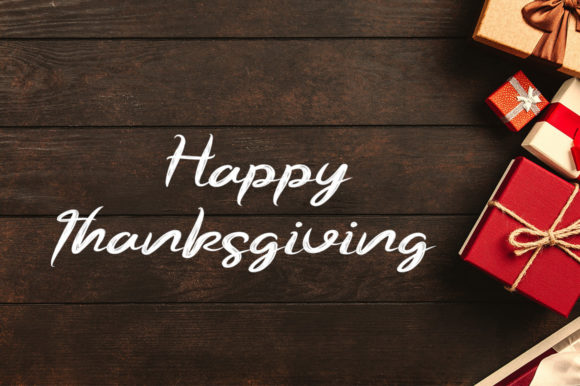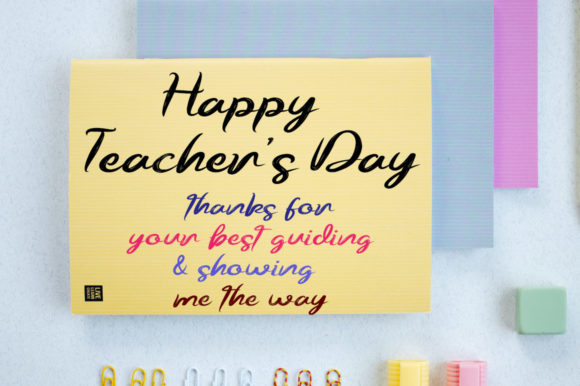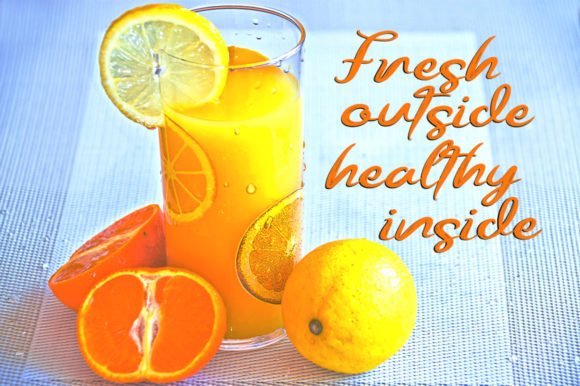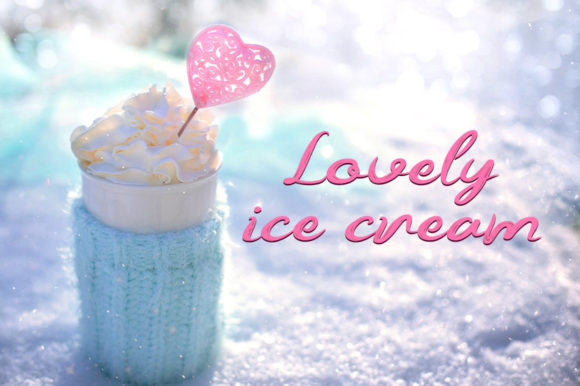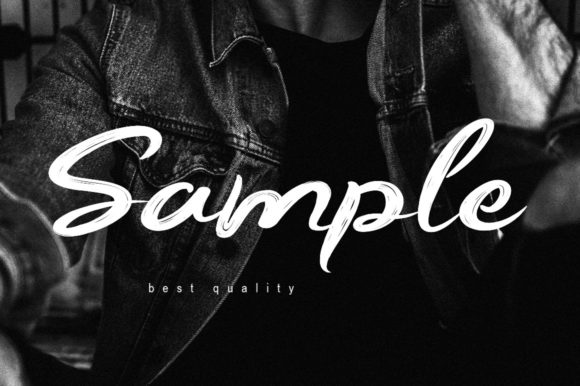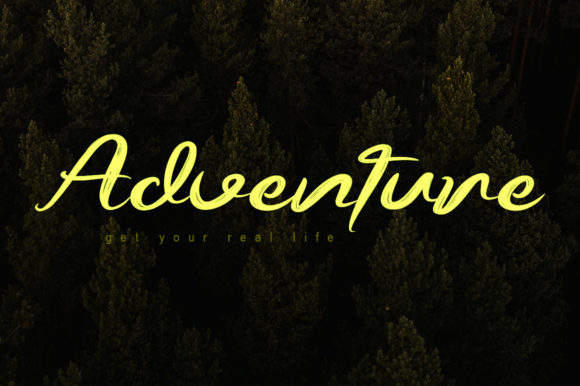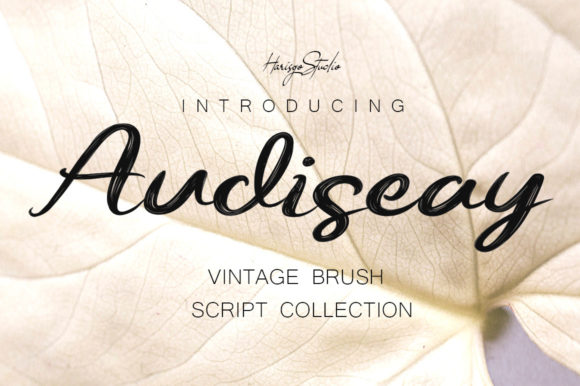
The Sweet Spot: Discovering the Charm of Audiseay Font
I’ll never forget the time I was working on a project for a client who wanted a logo that screamed “whimsical” and “romantic.” I had spent hours scouring font libraries, but nothing seemed quite right. That was until I stumbled upon Audiseay Font. This sweet and cursive handwritten font has a unique brush touch that immediately captured the essence of what my client was looking for. In this article, I’ll share my journey with Audiseay, its features, and how you can make the most of it in your designs.
A First Impression: What I Love About Audiseay
Audiseay Font has quickly become a favorite in my design toolkit, and for good reason. Here are a few things that I absolutely love about it:
- ✨ Unique Brush Touch: The font’s hand-brushed feel adds a level of personality and warmth to any design.
- ✅ PUA Encoded: Being PUA encoded means that accessing the amazing glyphs and ligatures is a breeze, making your design process smoother.
- 💫 Versatility: From logos and quotes to posters and playful lettering, Audiseay fits a wide range of design ideas.
- 💕 Romantic and Joyful Touch: It adds a certain charm that can make your projects stand out with a joyful and romantic feel.
An Honest Review: A Few Quirks
No font is perfect, and Audiseay has a couple of quirks worth mentioning:
- 🤔 Limited Use in Formal Designs: Due to its playful and cursive nature, Audiseay might not be the best fit for more formal or traditional designs.
- ⚠️ Requires OpenType Features Support: To get the most out of Audiseay, especially its glyphs and ligatures, you need to work in a design environment that supports OpenType features.
The Story Behind Audiseay: A Designer’s Inspiration
While the exact backstory of Audiseay’s creation might be unknown, it’s clear that the designer aimed to create a font that embodies warmth, joy, and romance. Inspired by the beauty of handwritten scripts and the uniqueness of brush strokes, Audiseay brings a piece of artistry to every design project.
| Is Audiseay suitable for professional projects? | Absolutely! Its unique and professional look makes it suitable for a wide range of projects, from branding to advertising. |
| Does Audiseay support OpenType features? | Yes, Audiseay is designed to take advantage of OpenType features, including glyphs and ligatures, to enhance your designs. |
Audiseay Font is more than just a typeface; it’s a design element that can transform your projects with its sweet and cursive handwritten charm. Whether you’re a designer, crafter, or creative hobbyist, Audiseay offers a unique touch that can elevate your work from ordinary to extraordinary.